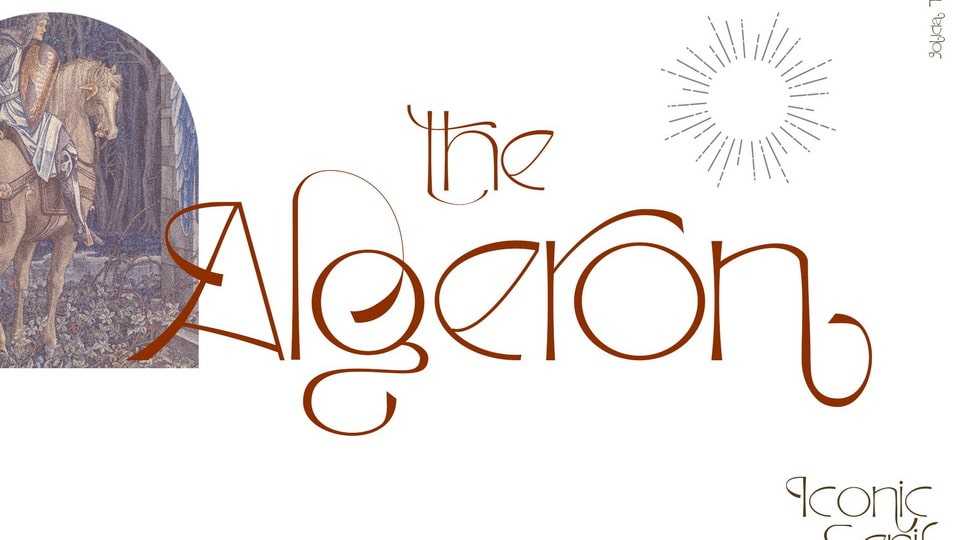
Download Algeron font, a thin serif typeface with an ethnic feel and a modern twist, many alternates choices so that you can combine according to your style.